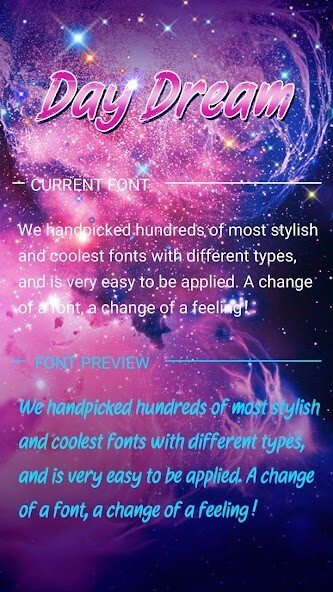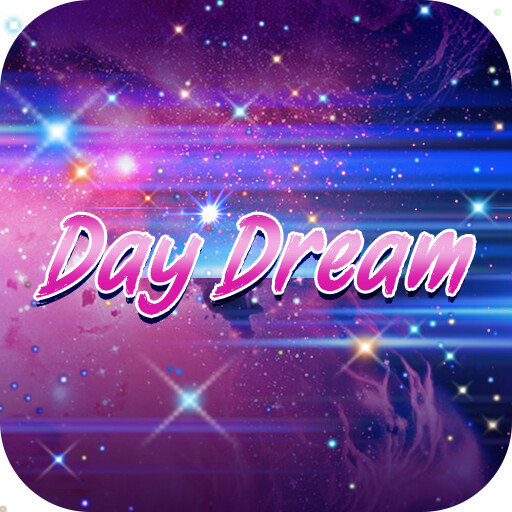
Lovely, sweet and colorful as you wish.
Hundreds of selected fonts style from handwritten fonts like Day Dream, such as cute, darker, comic, galaxy, love, pink, sexy written, colorful fonts, clean fonts, candy fonts, etc.